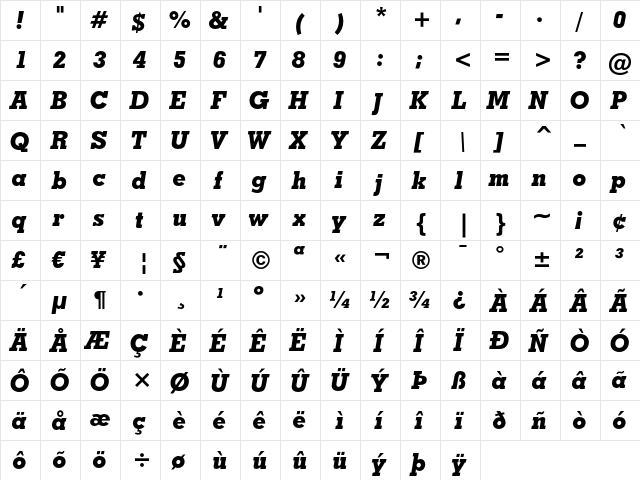
Geometric Slabserif 703 Extra Bold Italic Font Preview
Design Context for Geometric Slabserif 703 Typeface
Geometric Slabserif 703 combines the readability of serif typography with the visual weight of a slab construction, resulting in a typeface that feels both authoritative and approachable. Its italic angle brings a sense of urgency and motion to the letterforms. The heavy weight commands attention and anchors typographic hierarchies.
Suited to magazines, political campaign materials, bold packaging, and any setting where authority matters.
Pro Tip: Use Geometric Slabserif 703 for headlines and subheadings where its slab serifs can make an impression. It also holds up well in mid-size body copy thanks to its sturdy construction.